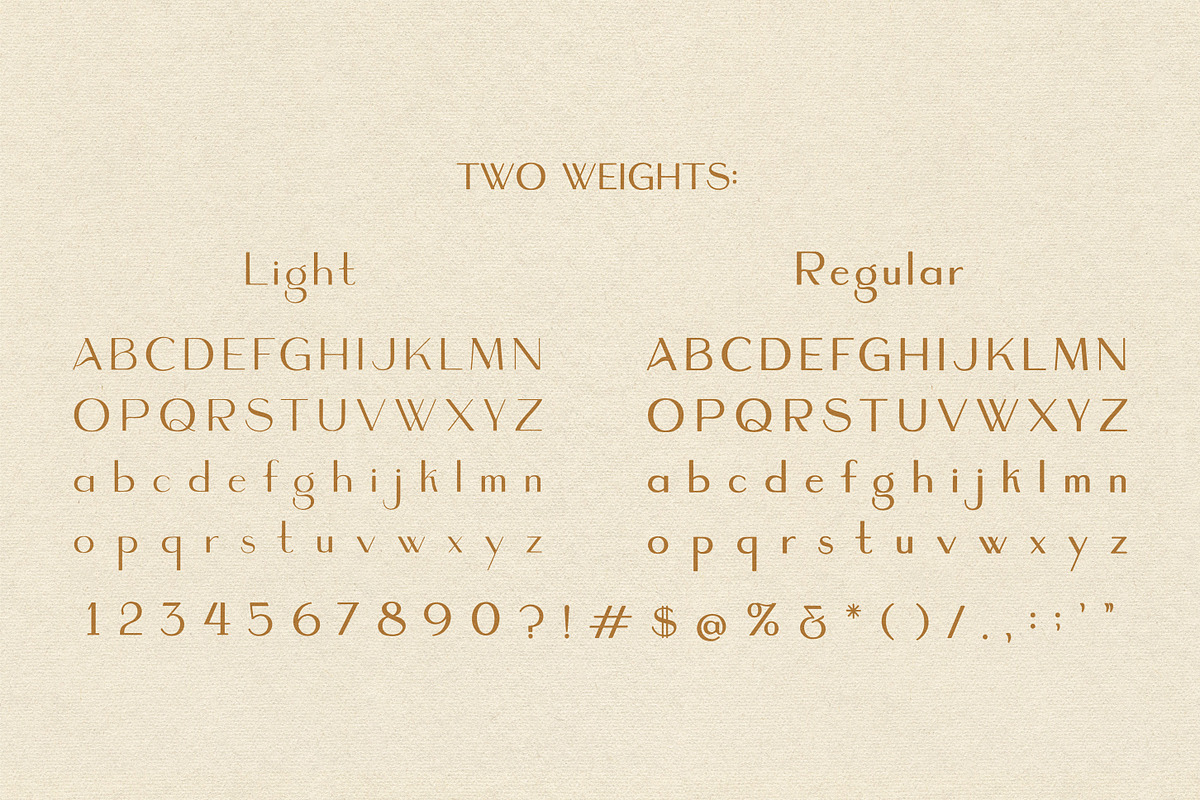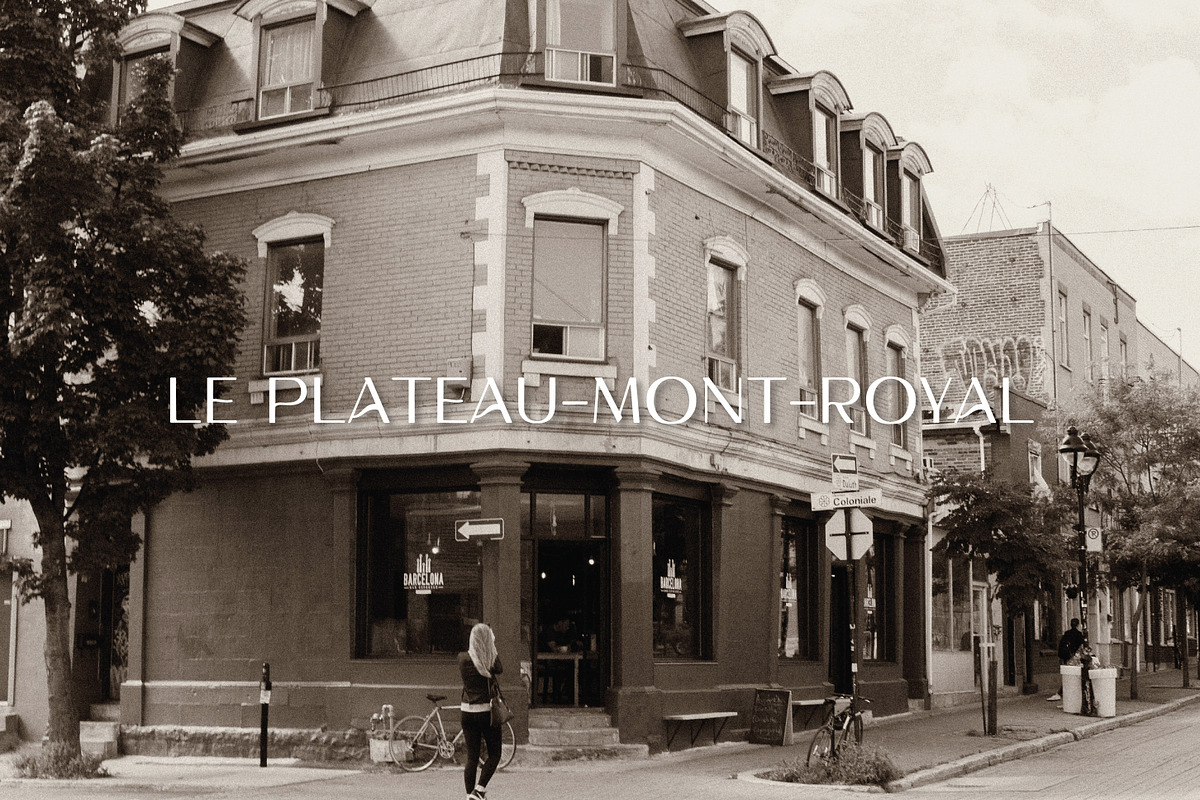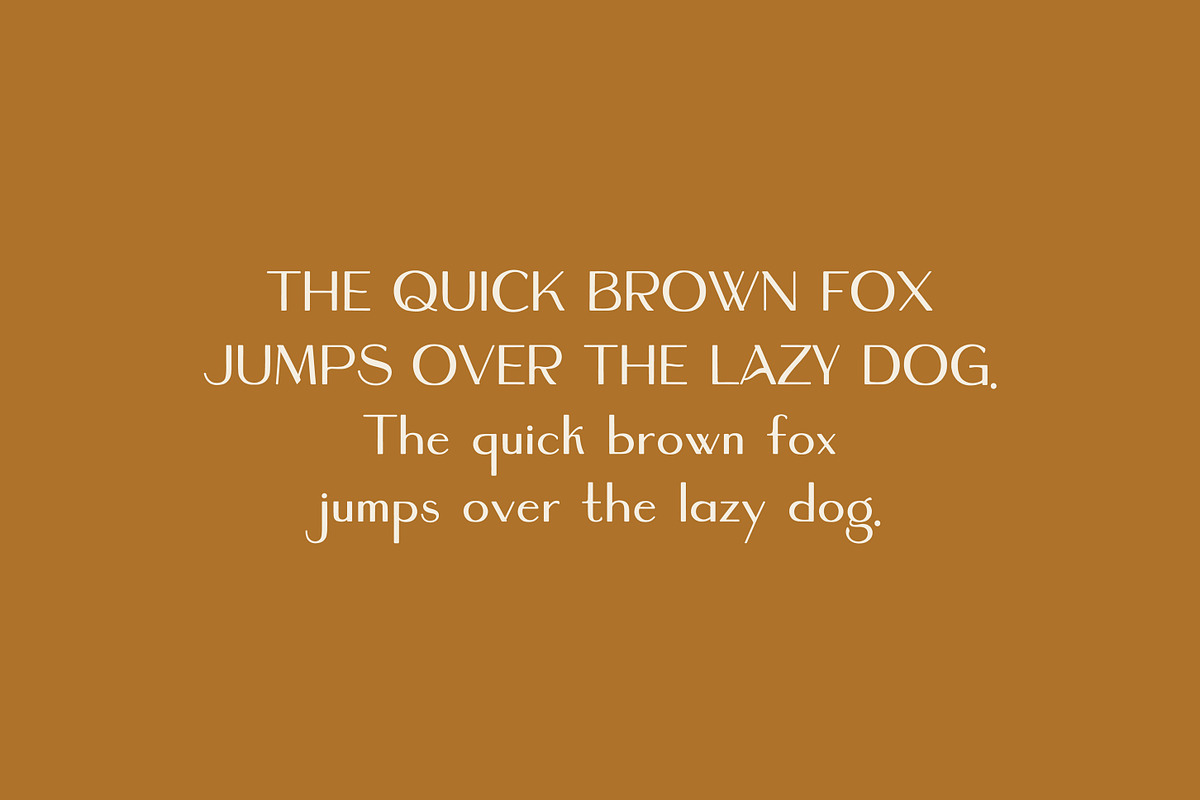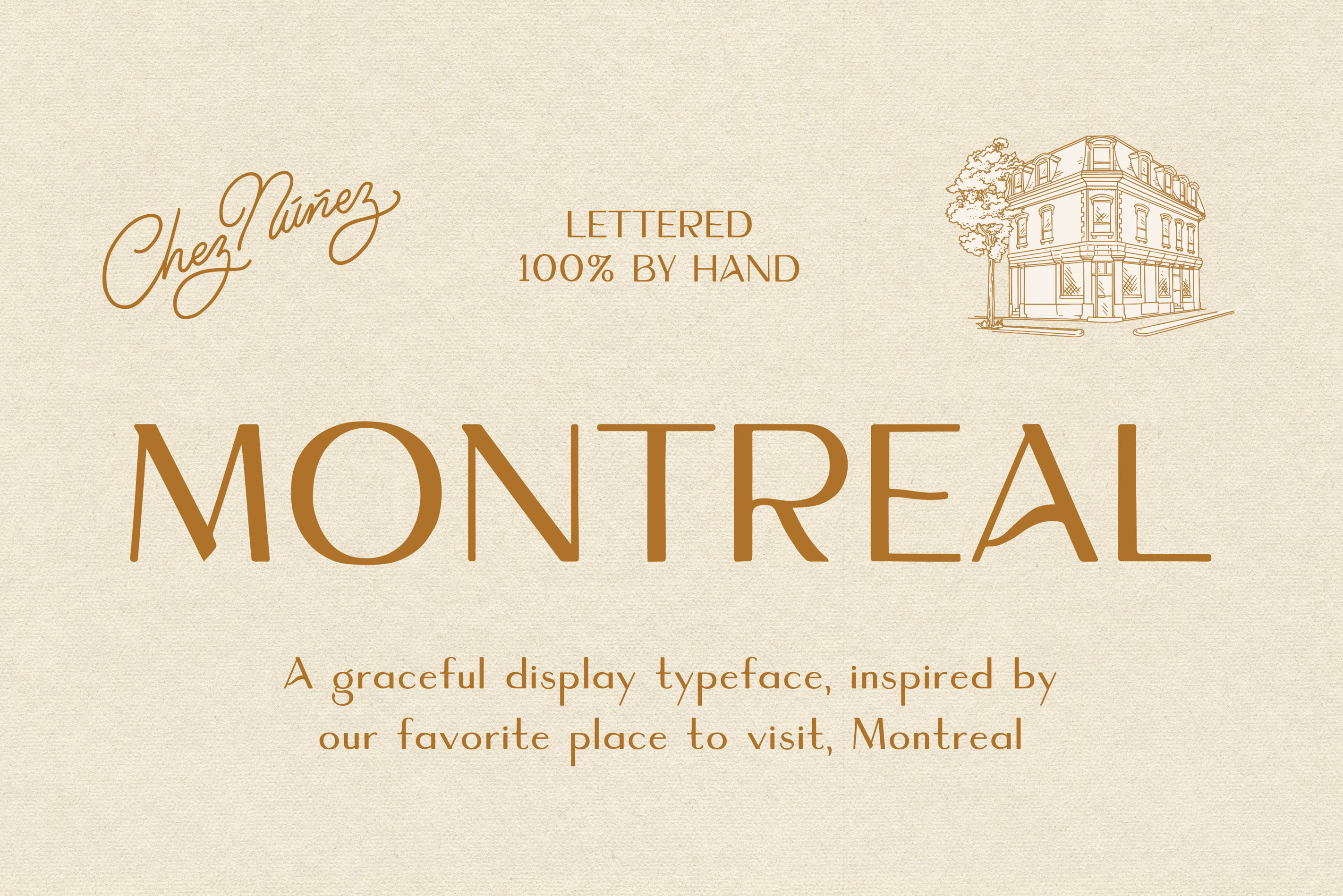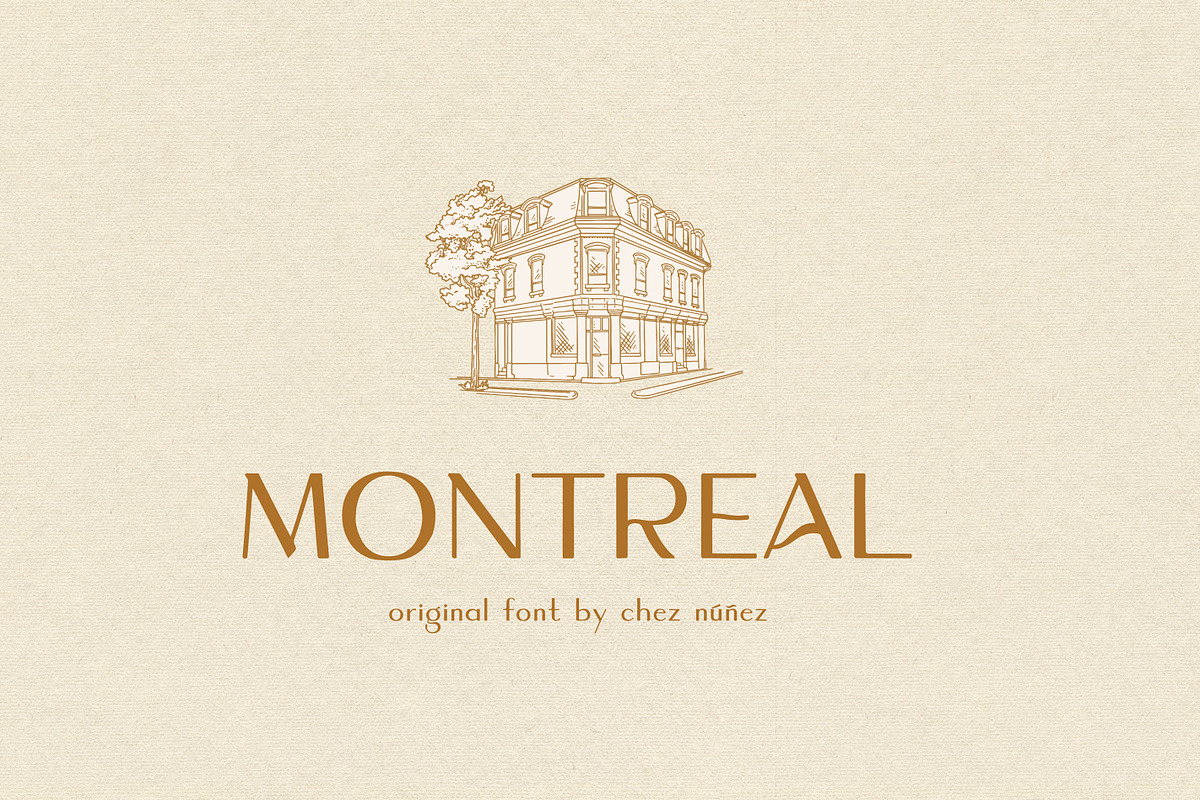
MONTREAL: Elegant Display Font
A graceful display typeface, inspired by Jesús and Anna's favorite place to visit, Montreal
- Standard Latin Characters + Numericals - lettered by hand, by Anna Núñez
- Punctuation, Mathematical Symbols, and Spanish accent marks - lettered by hand, by Anna Núñez
- 2 weights: LIGHT and REGULAR
Here’s a list of ideas for how you can use Montreal:
- Personal Stationery Collateral like Business Cards, Letterhead, Post Cards, Trifolds
- Personal Promotion Usage: Garage Sale Flyers, Local Theater, Local Band Posters
- Packaging + Merch Design
- Independent Artist Usage/ Independent Musicians
- Marketing and Promotional Materials
- Brand Typeface
- Logo Design